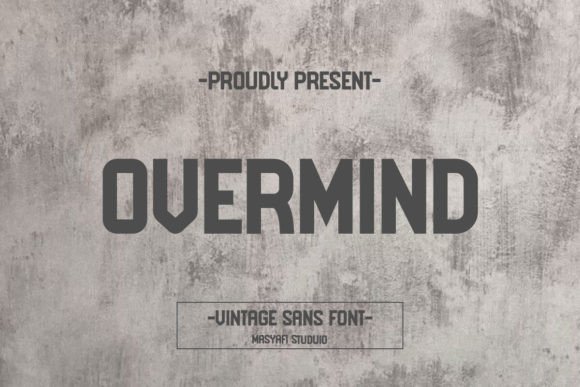
Welcome to the world of Overmind, a sans serif font that exudes vintage charm and masculine strength. Its commanding presence adds a touch of sophistication and power to your designs, leaving a lasting impression on your audience.
Crafted by Masyafi Studio, Overmind is more than just a font; it's a visual symphony. Its clean lines and sharp edges provide a solid foundation for your words, while its subtle curves and vintage flair add a touch of elegance. Whether you're designing logos, headlines, overlays, or any other creative project, Overmind promises to elevate your work to new heights.
With Overmind, you'll discover a font that's not just versatile but transformative. Its ability to adapt seamlessly to various design styles and themes makes it the perfect choice for those seeking a font that can effortlessly elevate their projects. From bold and powerful headlines to delicate and charming quotes, Overmind effortlessly captivates your audience, leaving them spellbound by its visual prowess.
Embrace the power of Overmind and experience the thrill of creating designs that resonate deeply with your audience. Its vintage charm and masculine style will add a touch of authenticity and charisma to your work, making it stand out from the crowd. Unlock the full potential of your creativity and let Overmind be the catalyst that propels your designs to new heights.